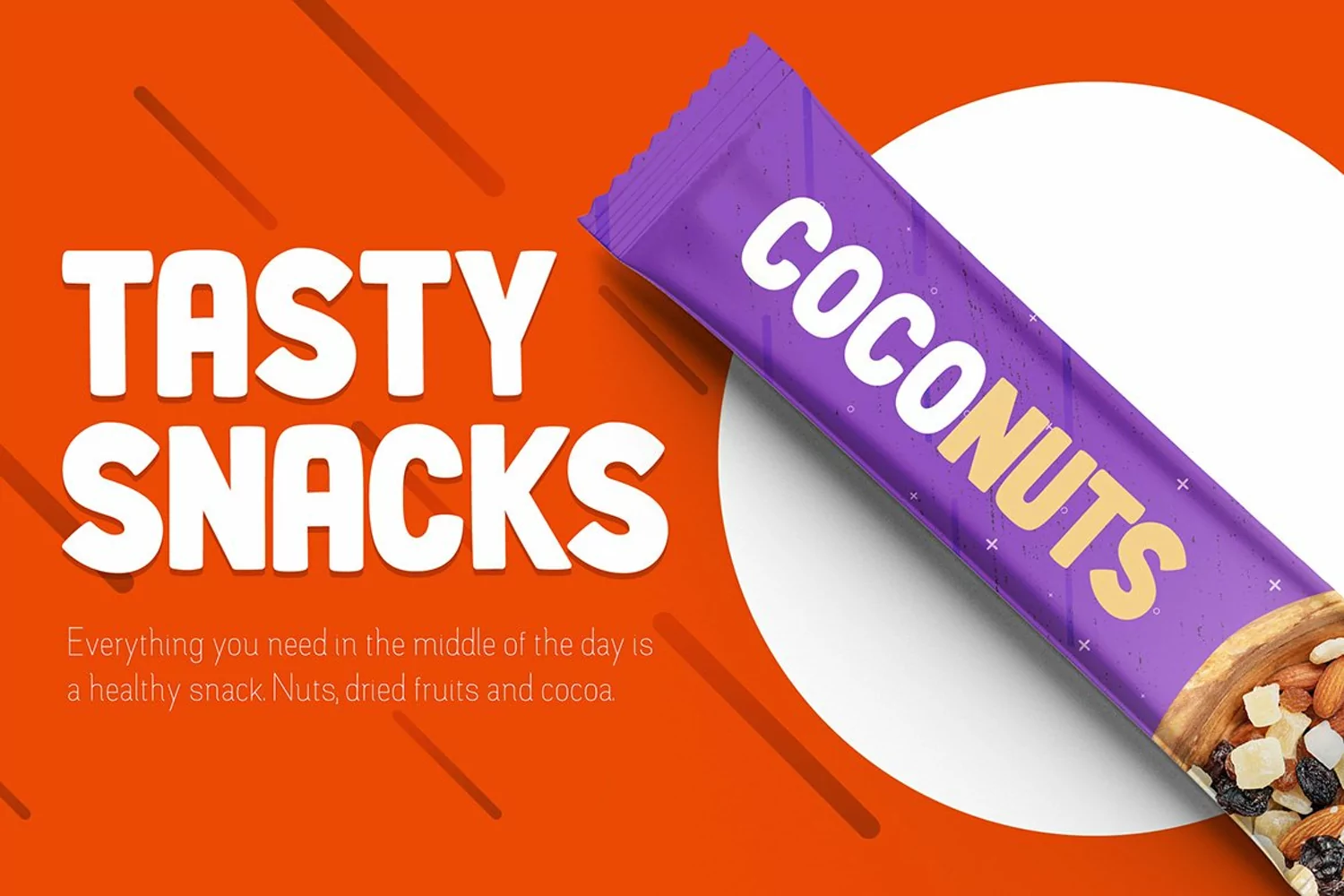
Rimo is a bold sans serif font. Great for t-shirt designs, phone cases, invitations and so much more.
All Uppercase font
Language support: English, Spanish, Portuguese and French.